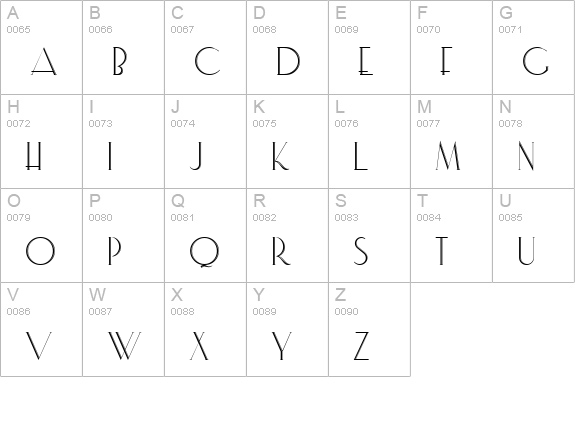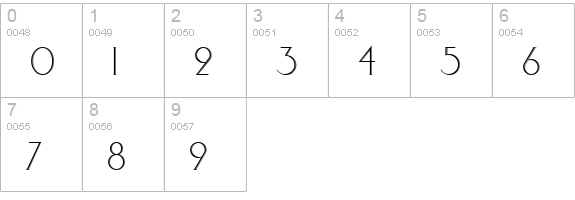
ElisiaInline Font Details
ElisiaInline font is a captivating and modern typeface that effortlessly combines elegance with a touch of playfulness. Its sleek, inline design adds a unique flair to any project, making it perfect for branding, logos, headlines, and more. The clean lines and balanced letterforms of ElisiaInline exude a sense of sophistication while maintaining a contemporary edge. What makes ElisiaInline even more appealing is that it is available for free download at FontsMarket.com. This means you can easily access and use this stunning font in your designs without any cost involved. Whether you're a designer looking to add a fresh element to your work or a business owner seeking a stylish font for your branding, ElisiaInline is the perfect choice. Elevate your projects with the charm and versatility of ElisiaInline font today!